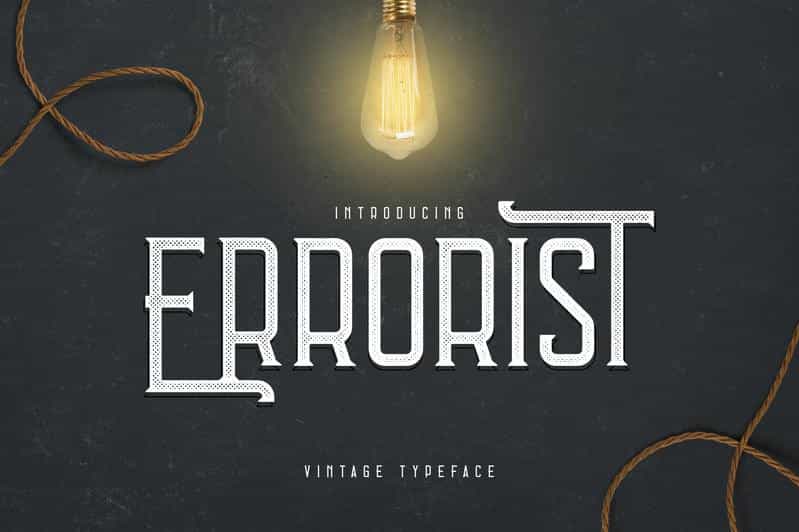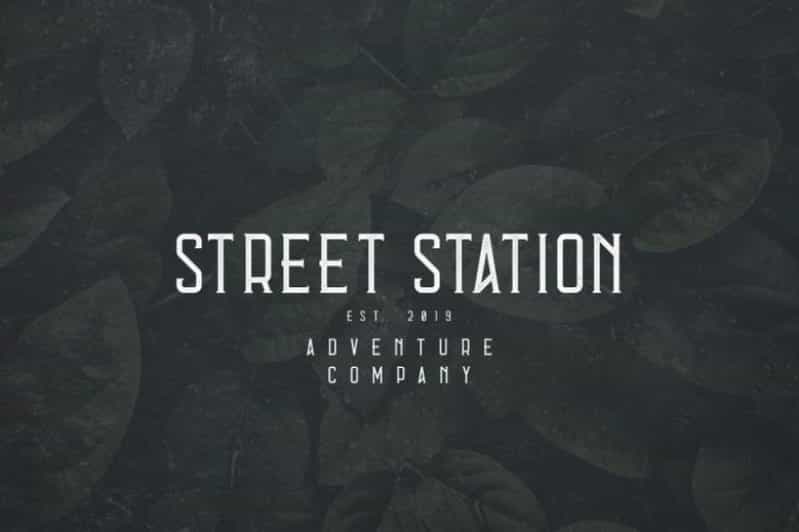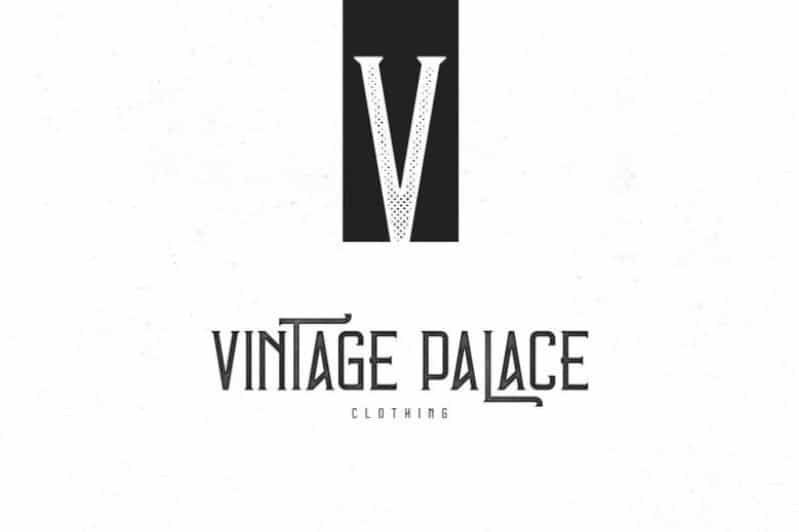
Errorist is a long, vintage font with 3 styles, and an abundance of options for the glyphs, as well as support for numerous languages. This is one of those fonts that can be used almost anywhere and it holds up well whether used large or small.